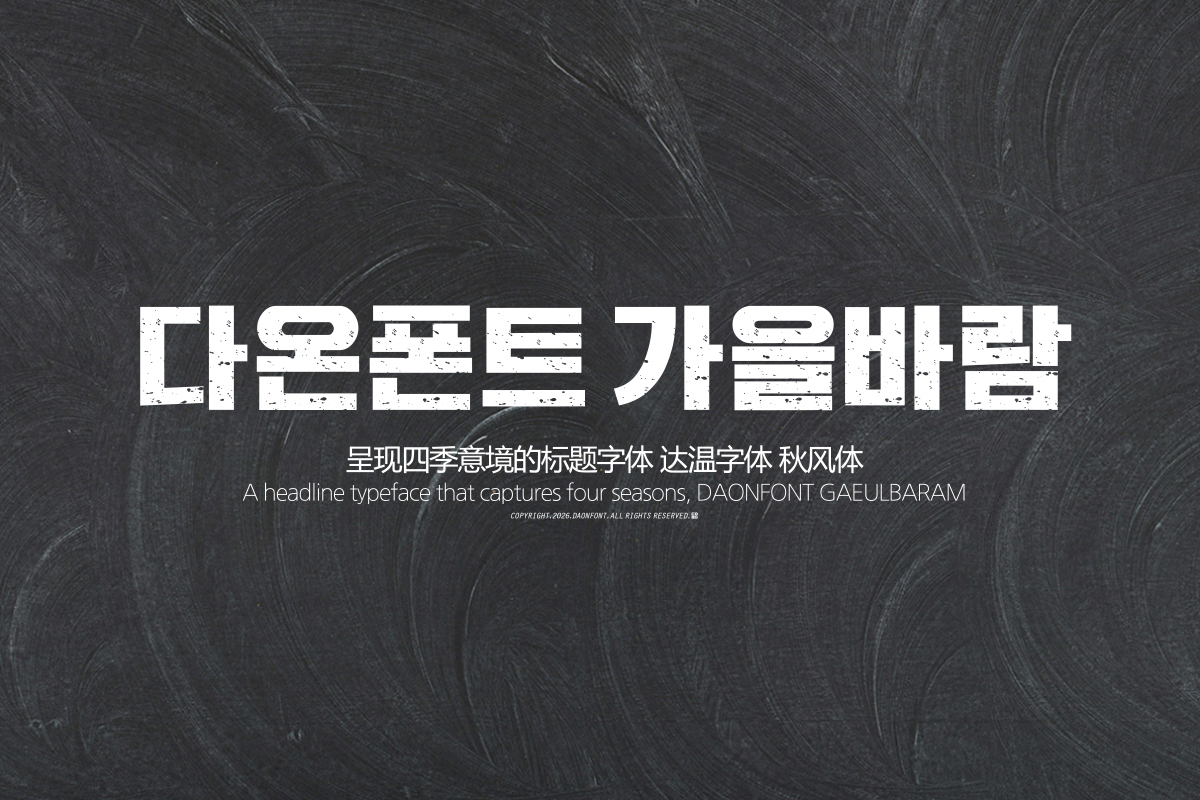
DAON SAGYE GAEUL
DaonFont 'SAGYE GAEUL' is a Korean display typeface that expresses the ink bleeding effect of fallen leaves scattering in a gentle breeze.